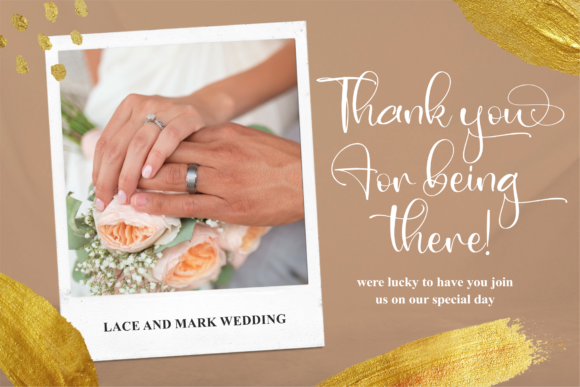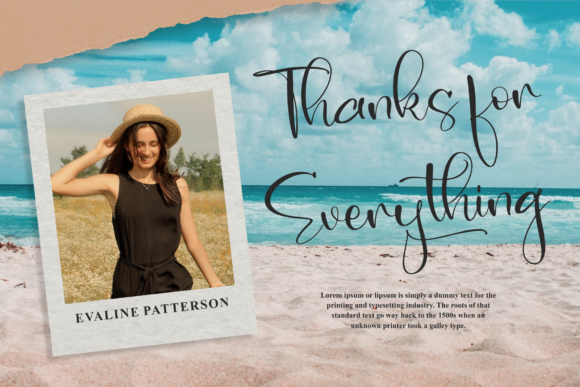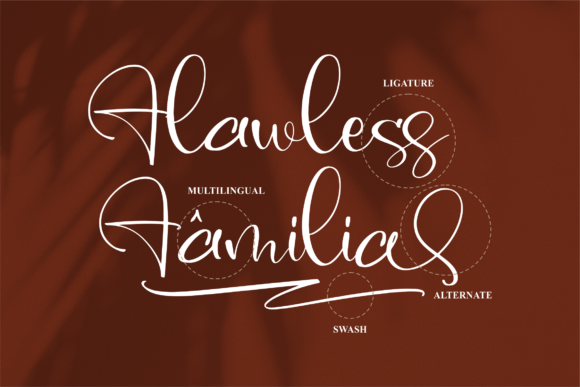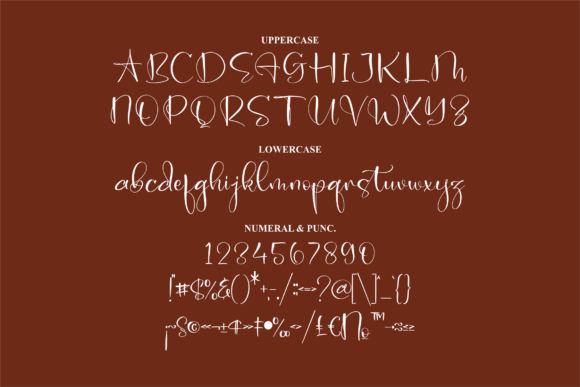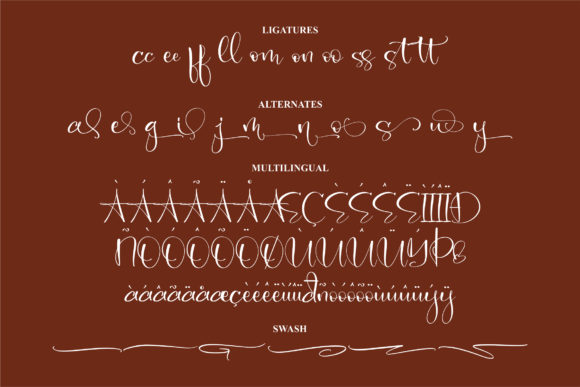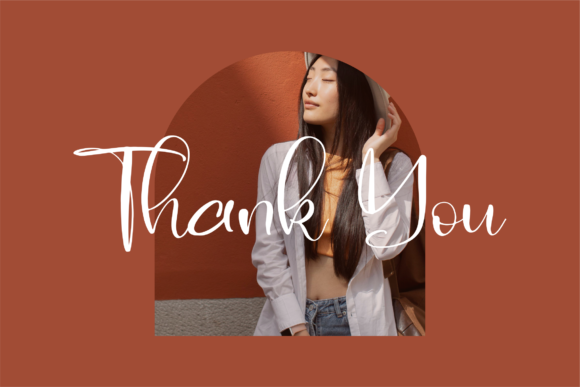
About Nostimaria Sintera Font
Nostimaria Sintera is a beautiful script font, suitable for any projects such as logos, branding projects, homeware designs, product packaging, mugs, quotes, posters, shopping bags, t-shirts, book covers, name cards, invitation cards, greeting cards, labels, photography, watermark, special events, and all your other lovely projects that need a beautiful script taste.